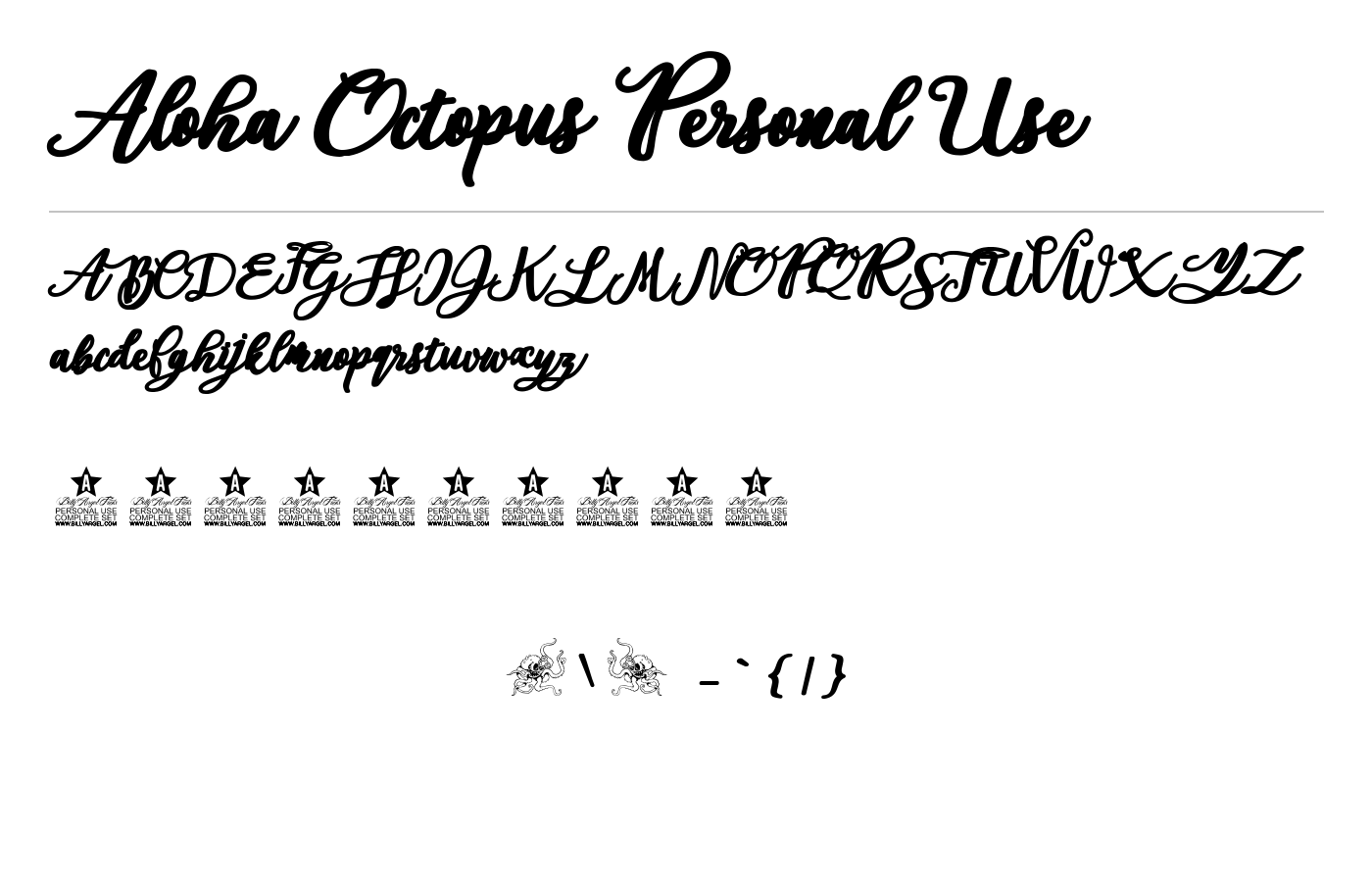
Aloha Octopus Personal Use is a bold and flowing script font that combines casual charm with elegant swashes, giving it a playful yet sophisticated feel. Its smooth, connected strokes and moderate contrast make it perfect for adding a personal, handcrafted touch to invitations, branding, and creative projects. This font works best in logos, headlines, and packaging where its distinctive style can shine and convey warmth and friendliness.
Aloha Octopus Personal Use Font
About Aloha Octopus Personal Use Font
| Font family | Aloha Octopus Personal Use Font |